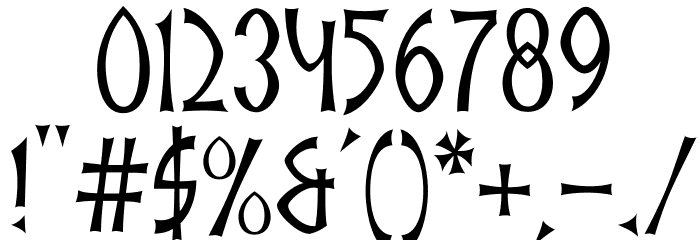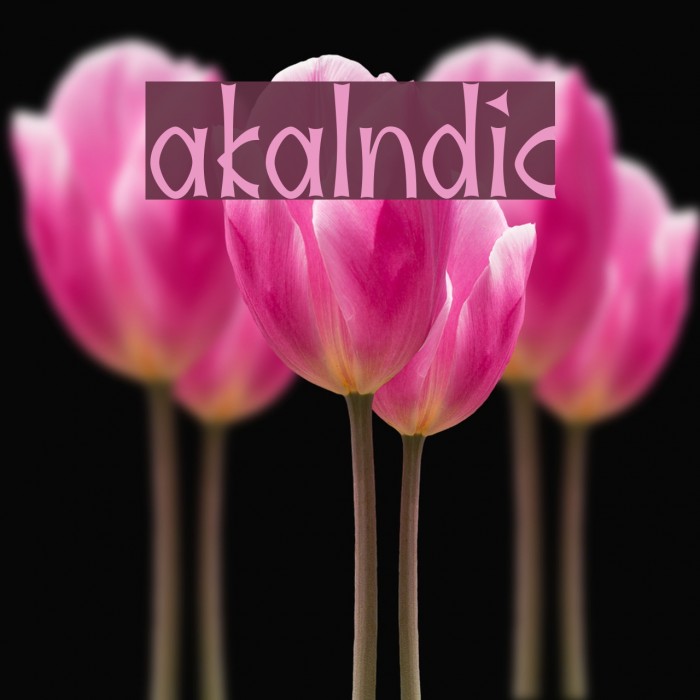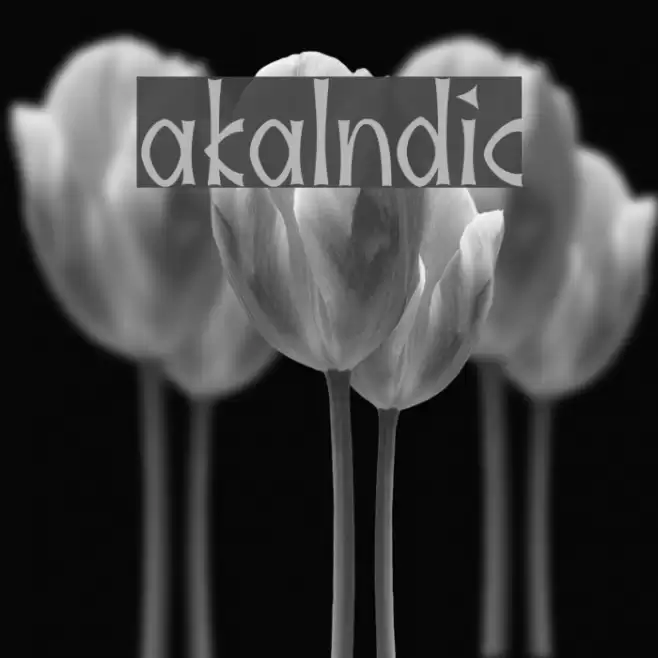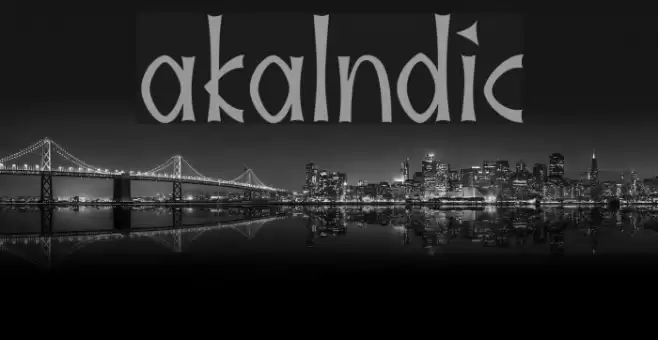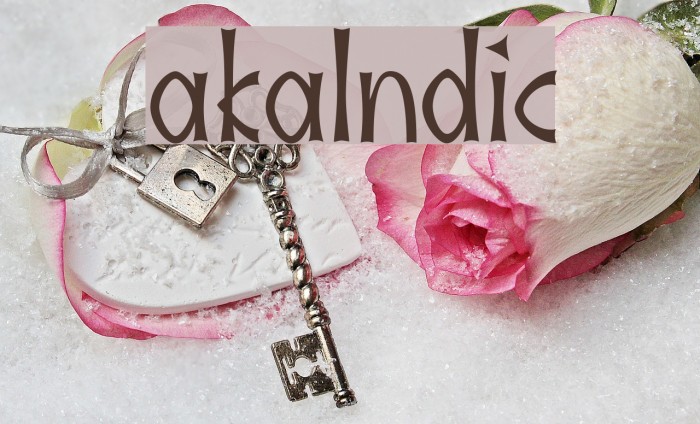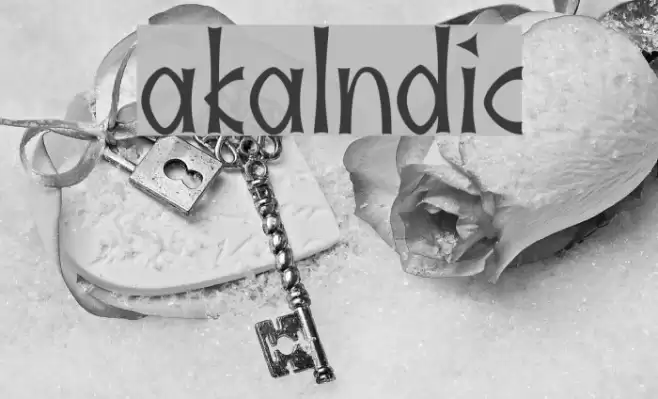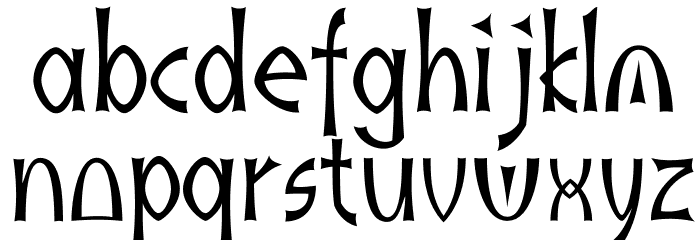
akaIndic Font
akaIndic Description
This font features a unique and artistic design with a distinctively tribal and geometric aesthetic. The characters are bold and have a strong presence, with angular shapes and sharp edges that give it a dynamic and energetic feel. The uppercase and lowercase letters maintain a consistent style, with some characters incorporating triangular and arrow-like elements that enhance its decorative nature. The numbers and special characters follow the same stylistic approach, ensuring uniformity across the font. This font is ideal for projects that require a bold and eye-catching typeface with a cultural or artistic theme.